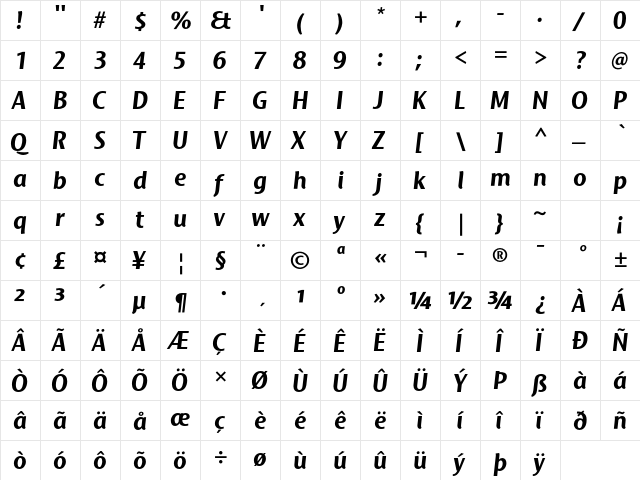
Mosquito Std Bold Italic
Design Context for Mosquito Std Typeface
Mosquito Std is a composed and adaptable typeface that performs quietly and consistently across a wide range of design contexts. The dynamic lean of this cut emphasises speed and emphasis in any layout. The heavy weight commands attention and anchors typographic hierarchies.
Pro Tip: Use Mosquito Std for emphasis, pull quotes, and subheadings where its slanted energy can add rhythm to the layout.